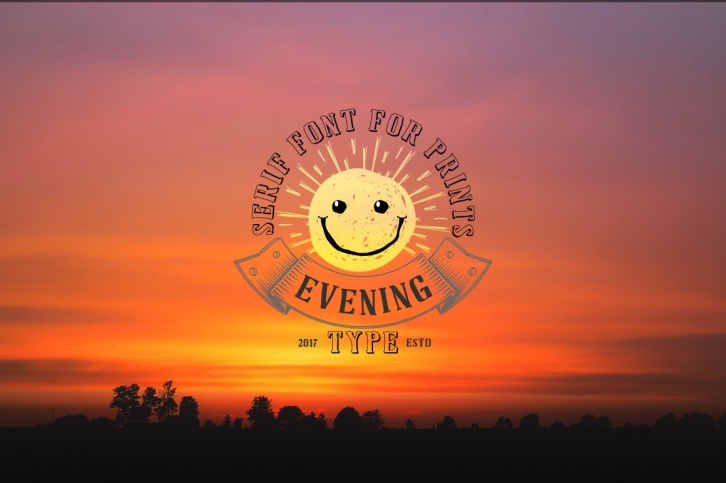
Hi guys! I created a new font. This font imitates, handmade, and very well suited, for logos, posters in retro styles. And Font for Cretaceous
Evening type